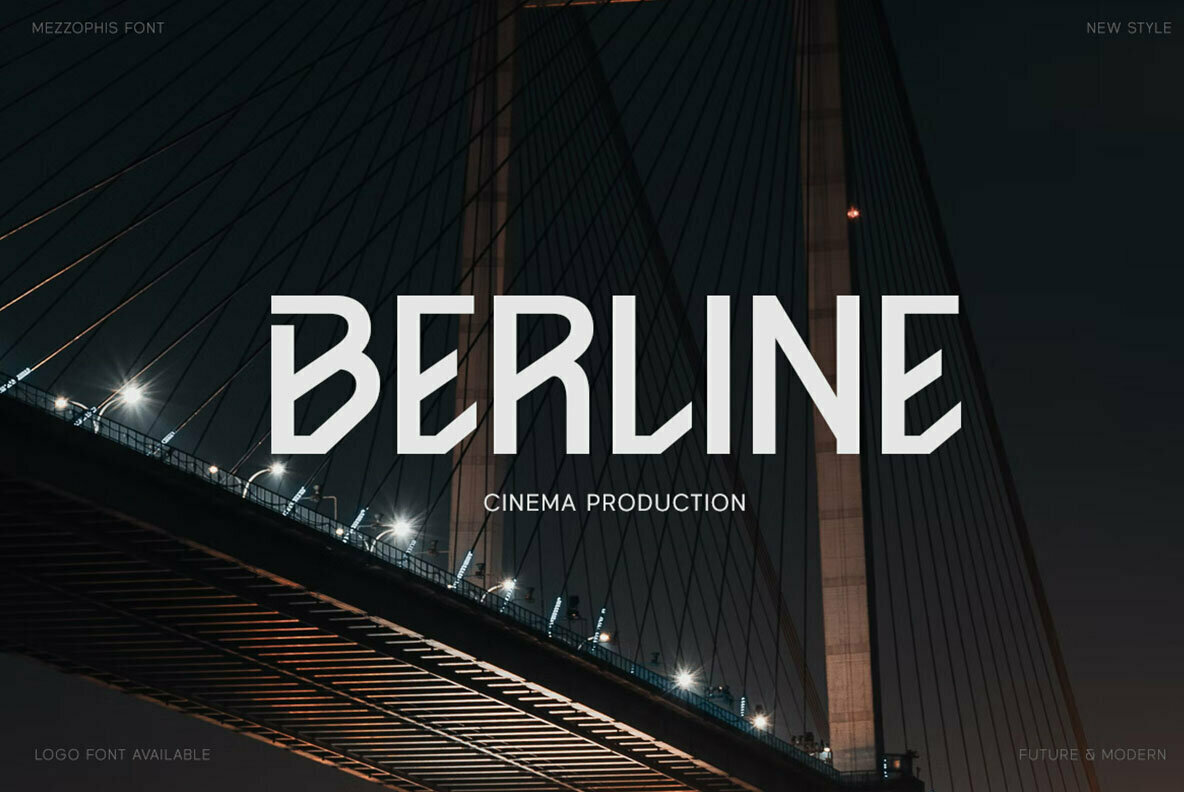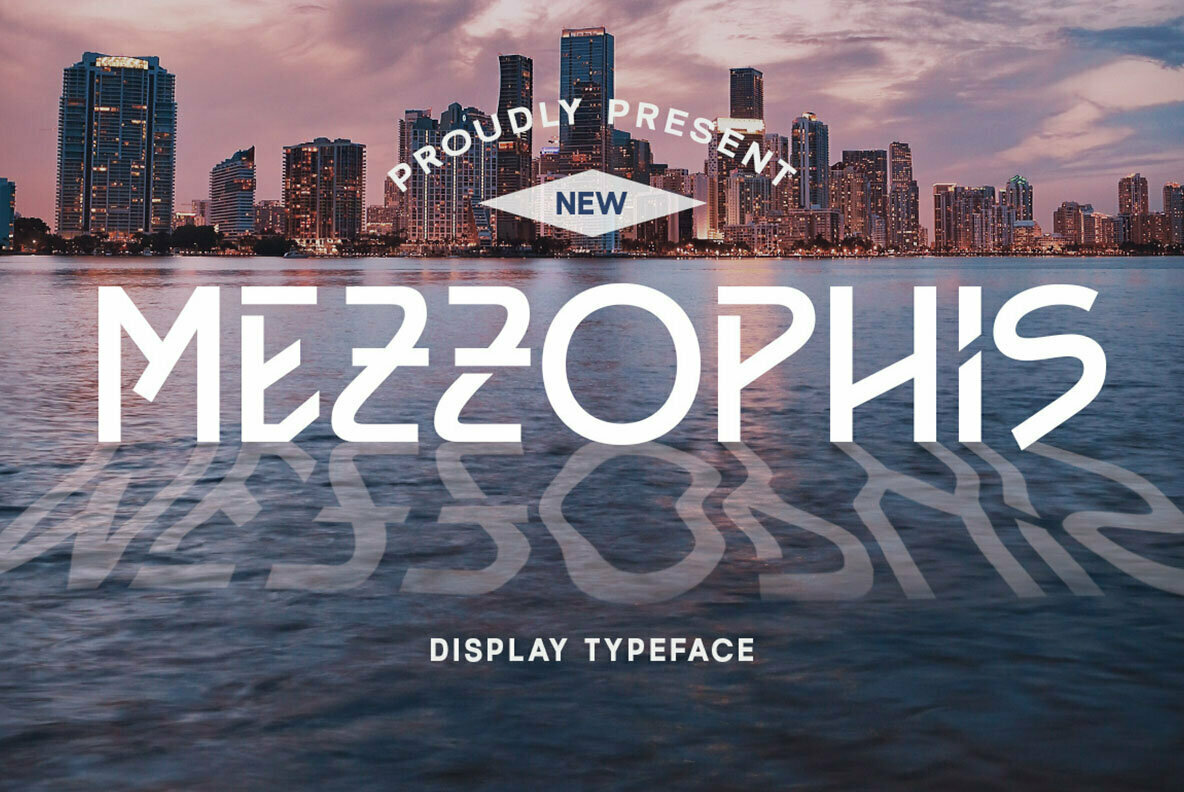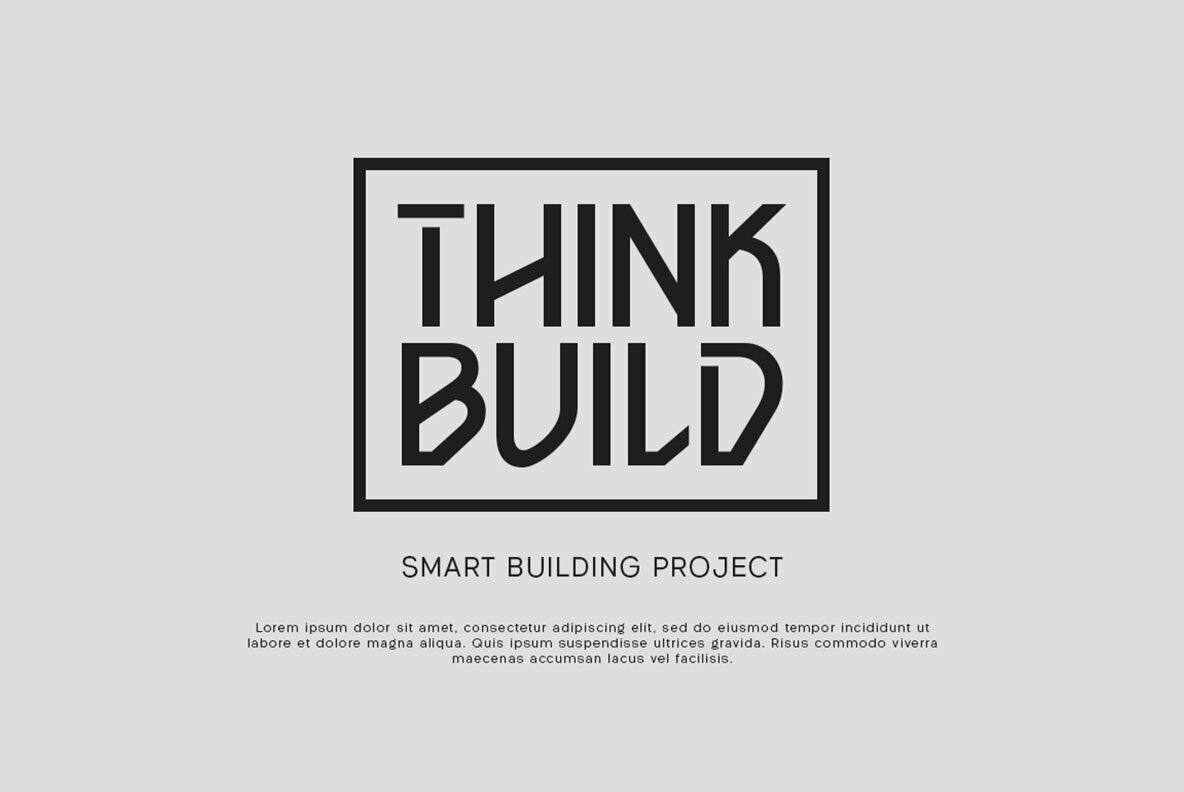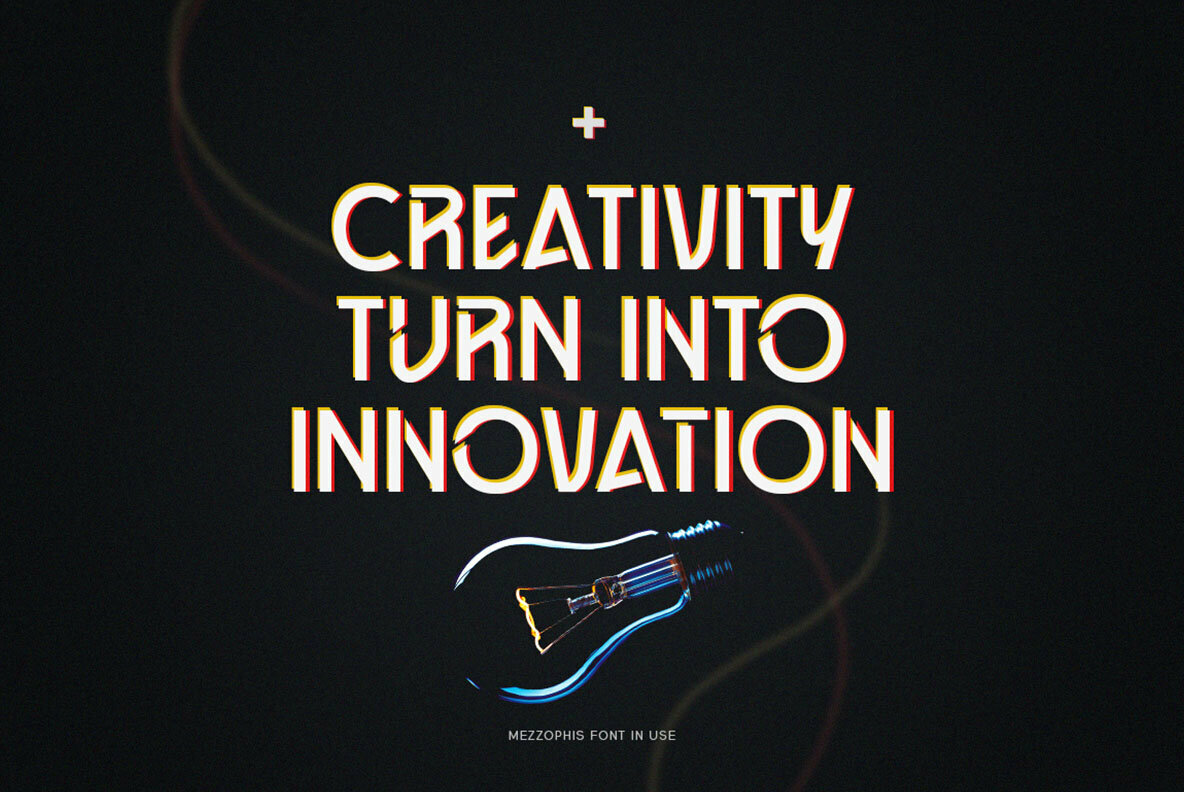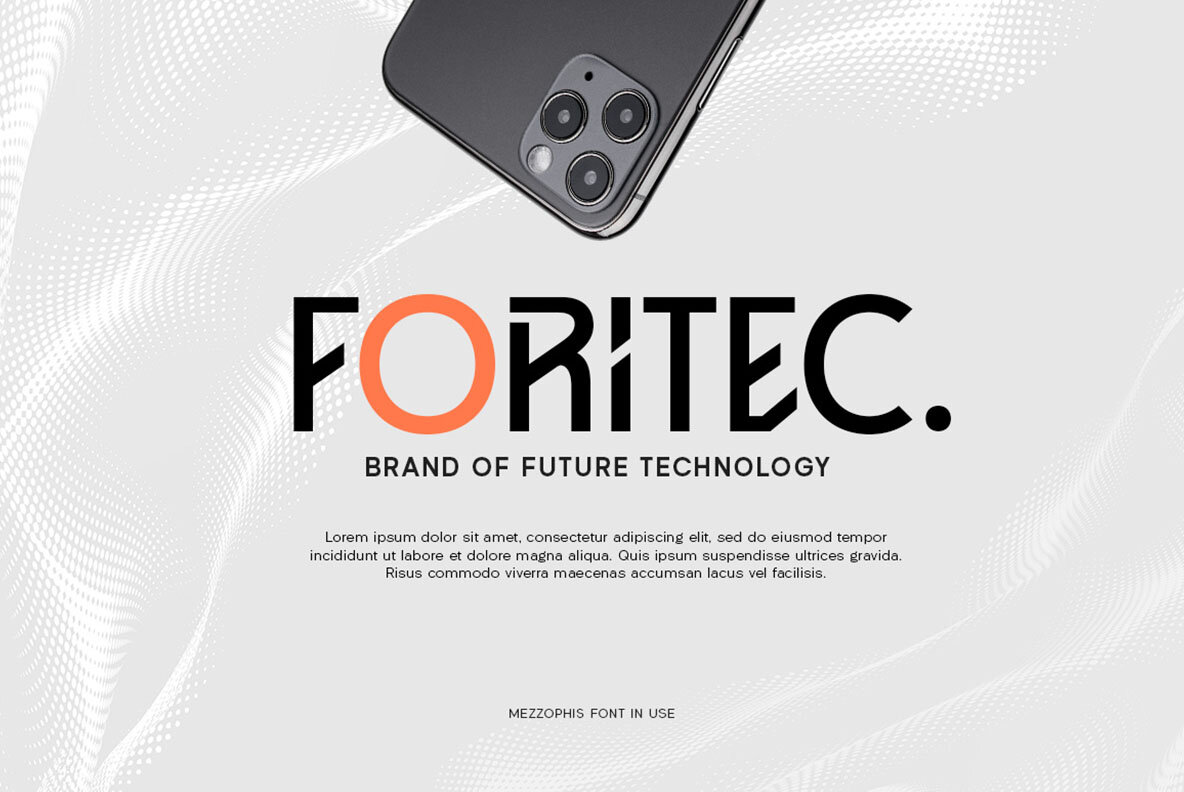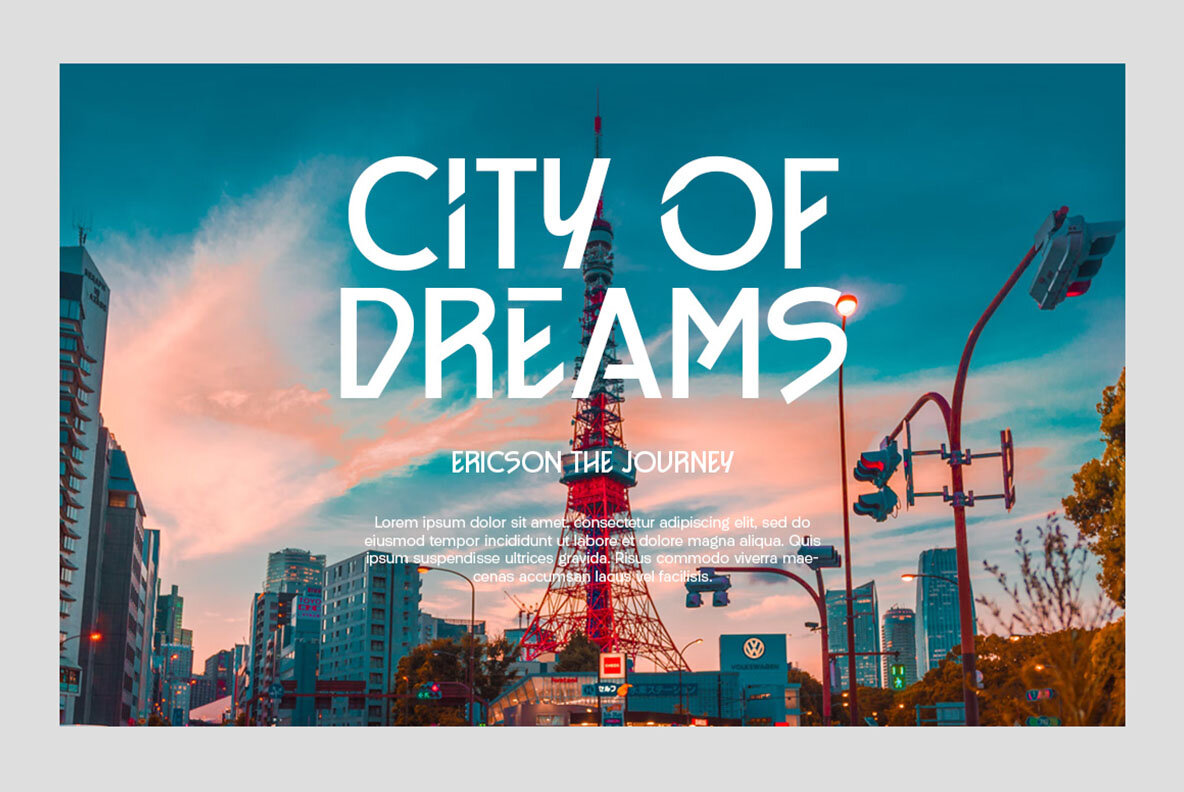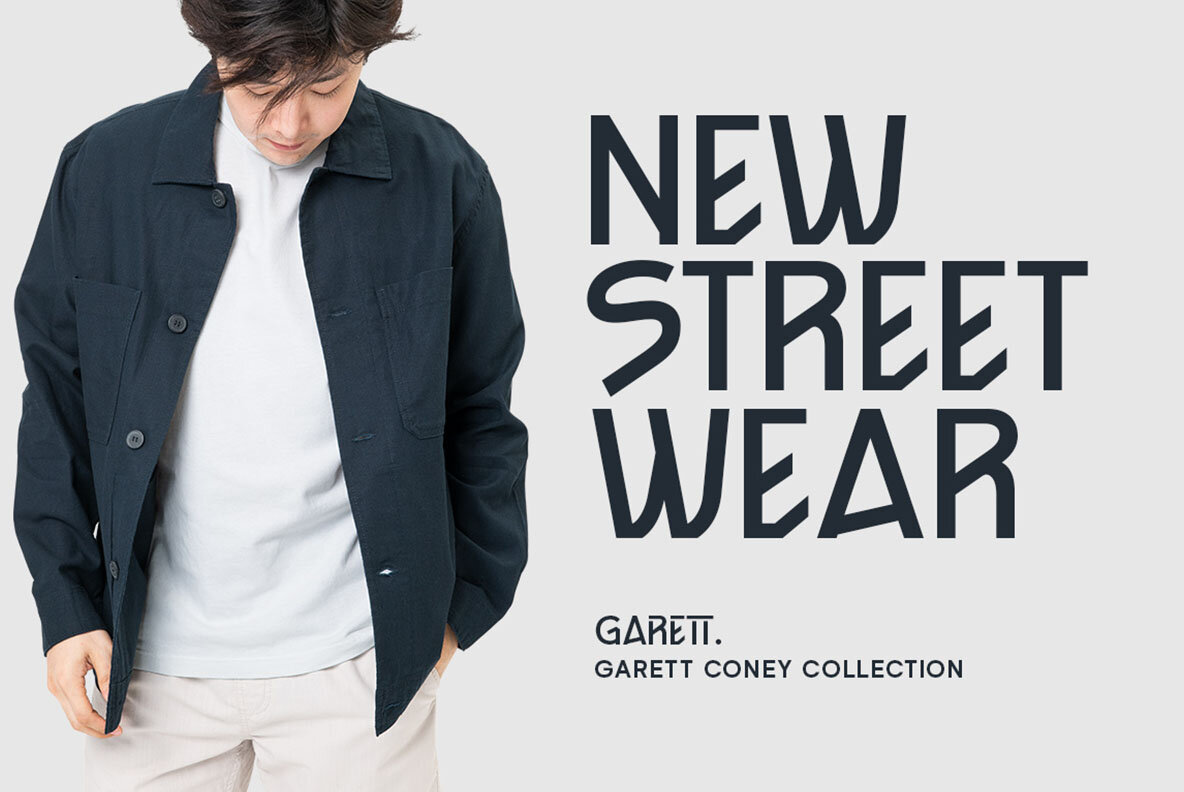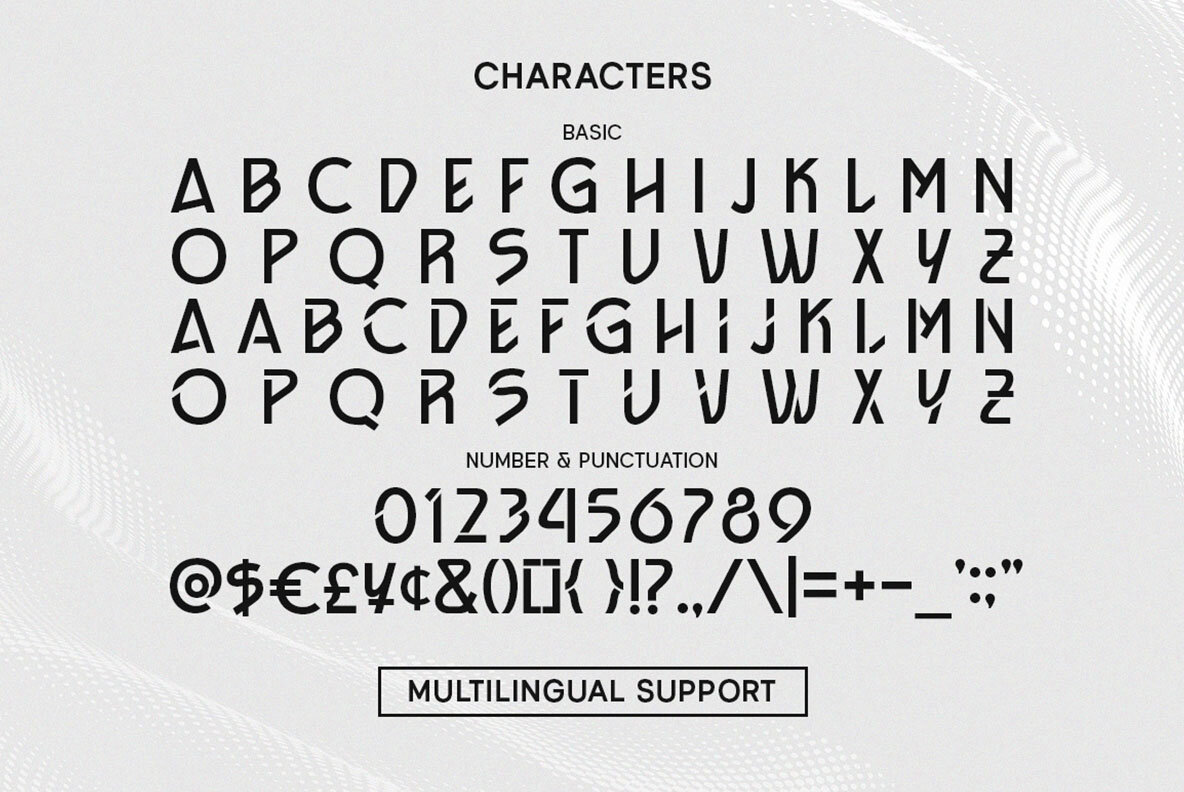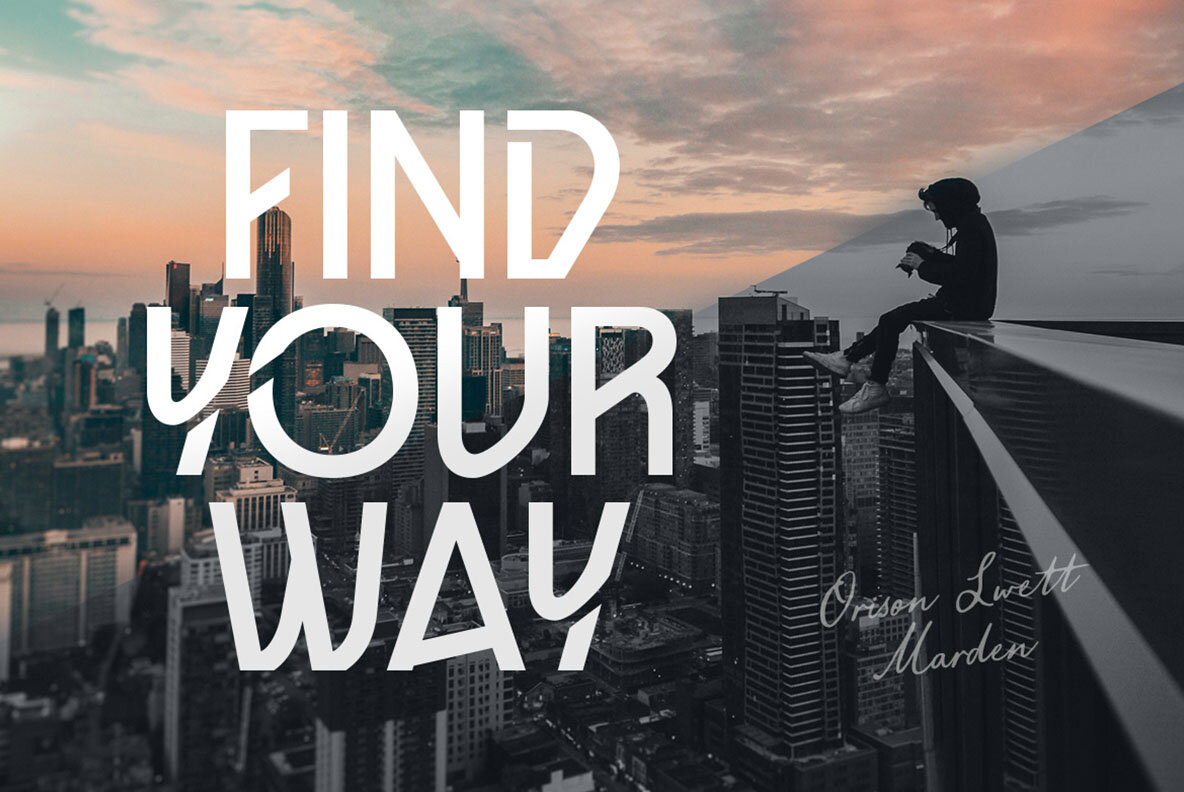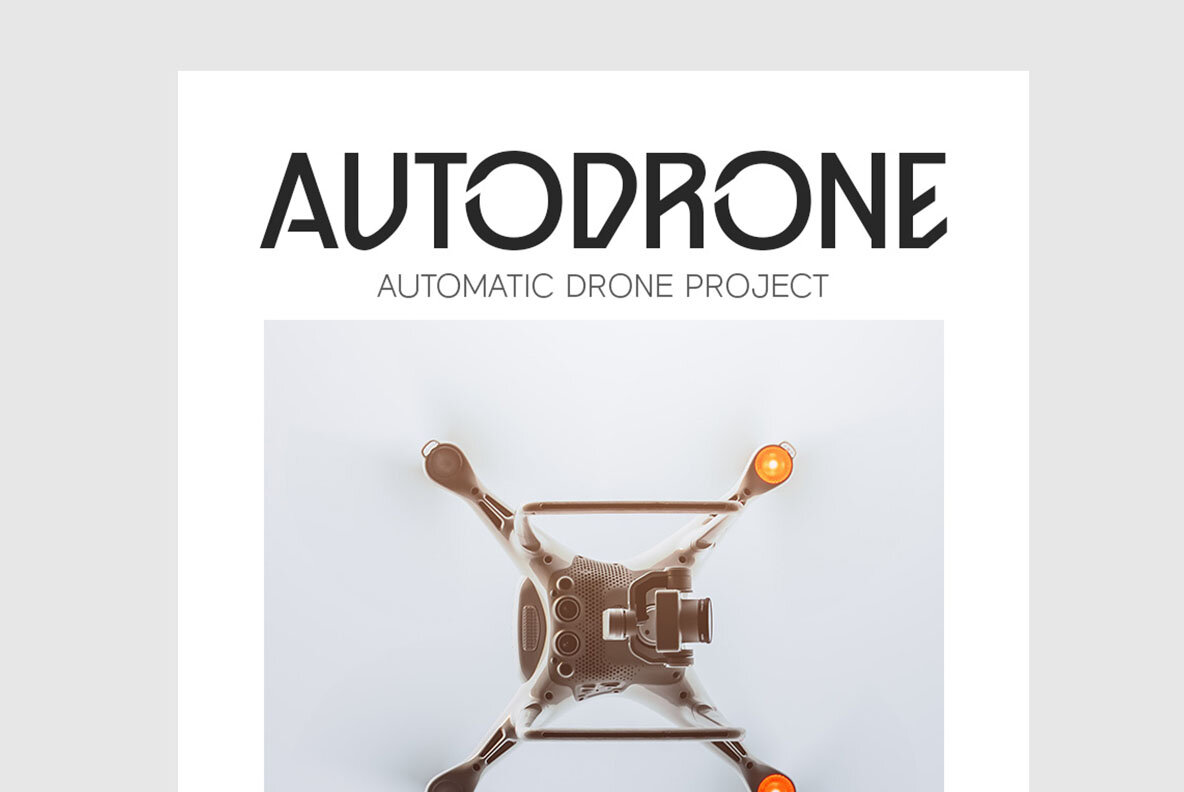
An innovative, futuristic font that's perfect for logos and headlines alike. The Mezzophis typeface has the right amount of technology with its sophisticated style to make it an excellent choice in any branding project you have on your plate!